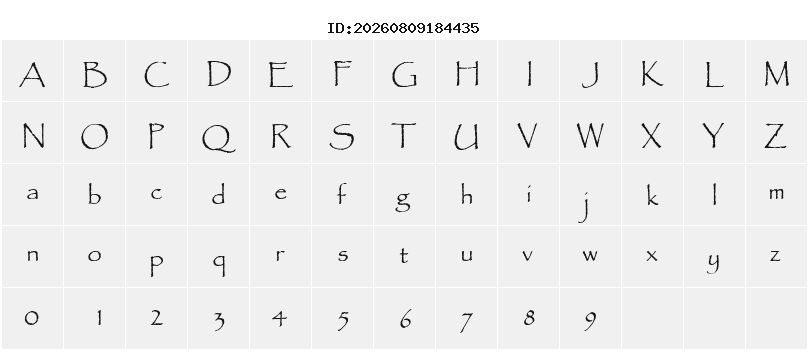
• Font Name: Papyrus ICG
Papyrus ICG.ttf is a modern, elegant sans-serif font designed for ultimate readability and visual harmony. Perfect for branding, headlines, web design, and print materials.